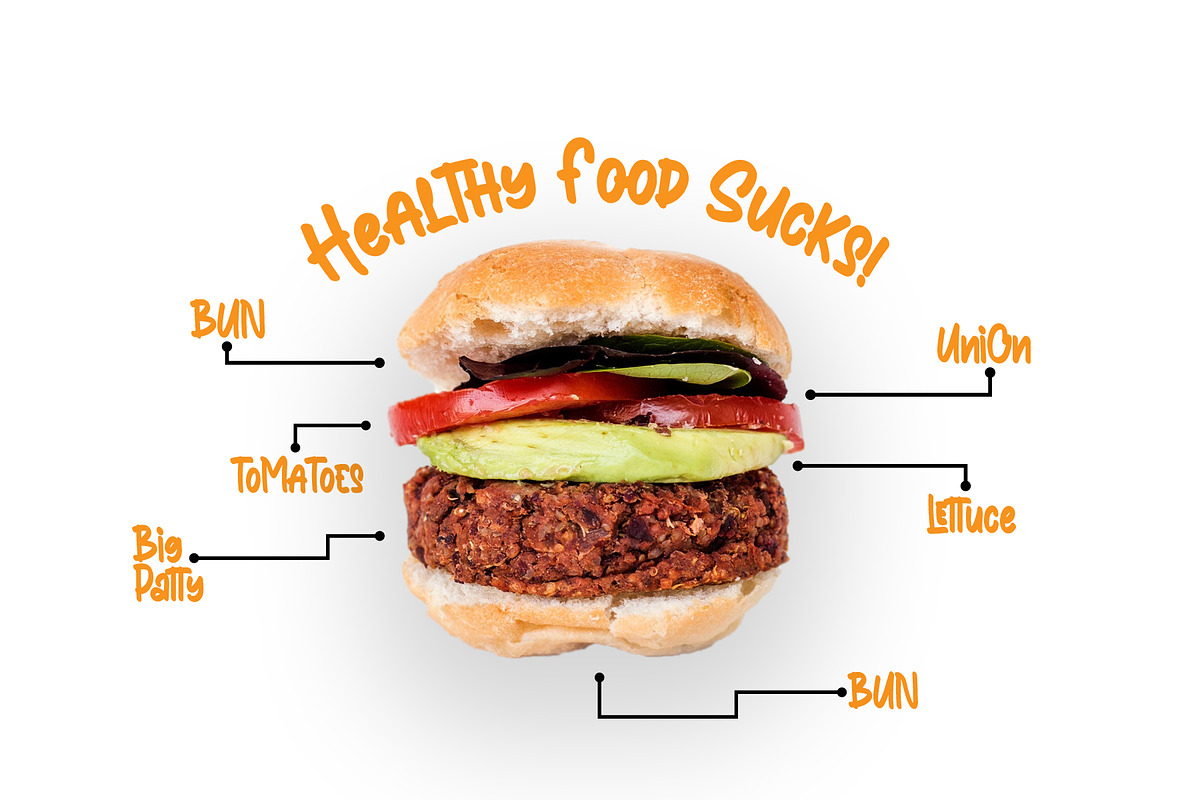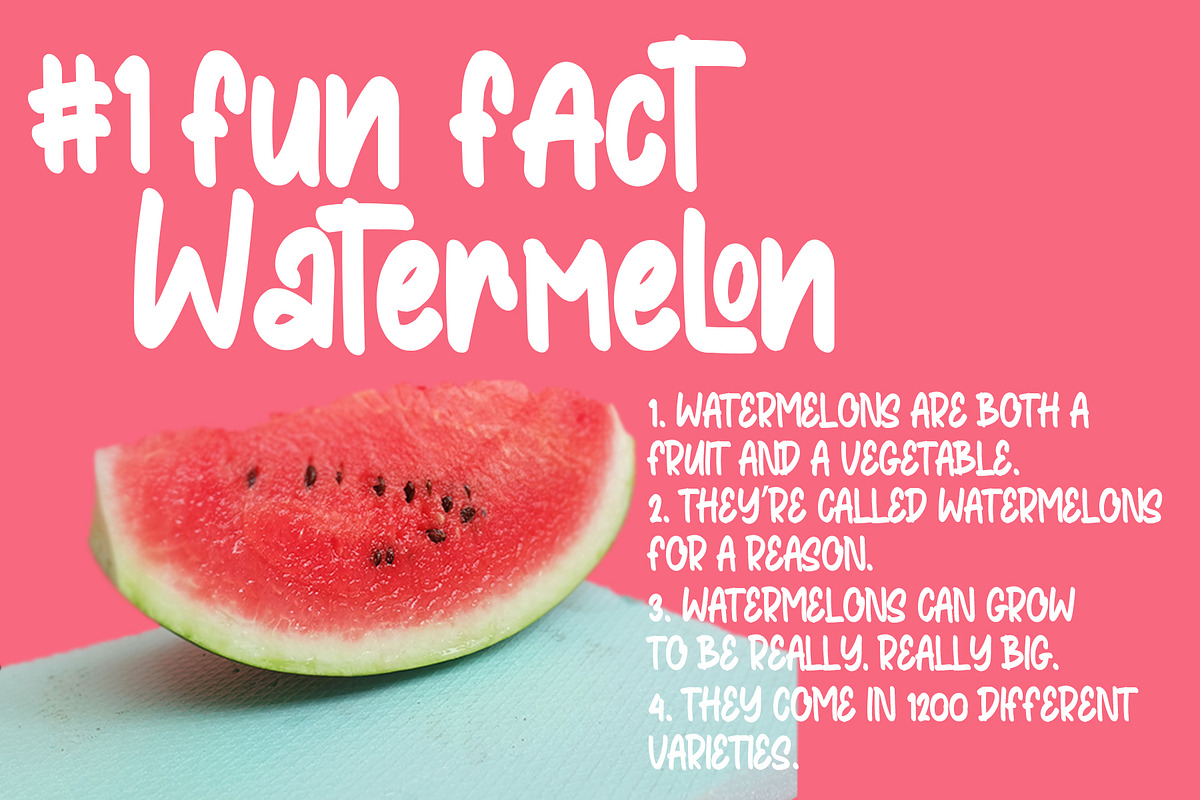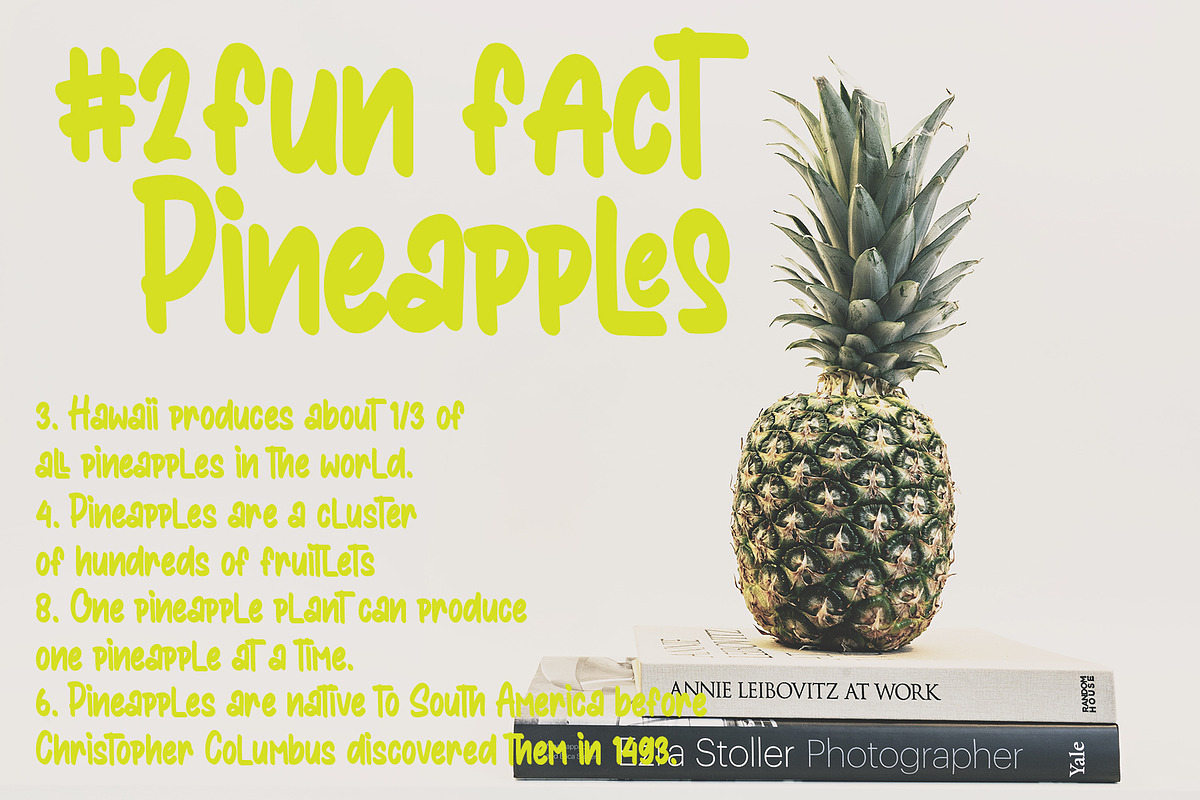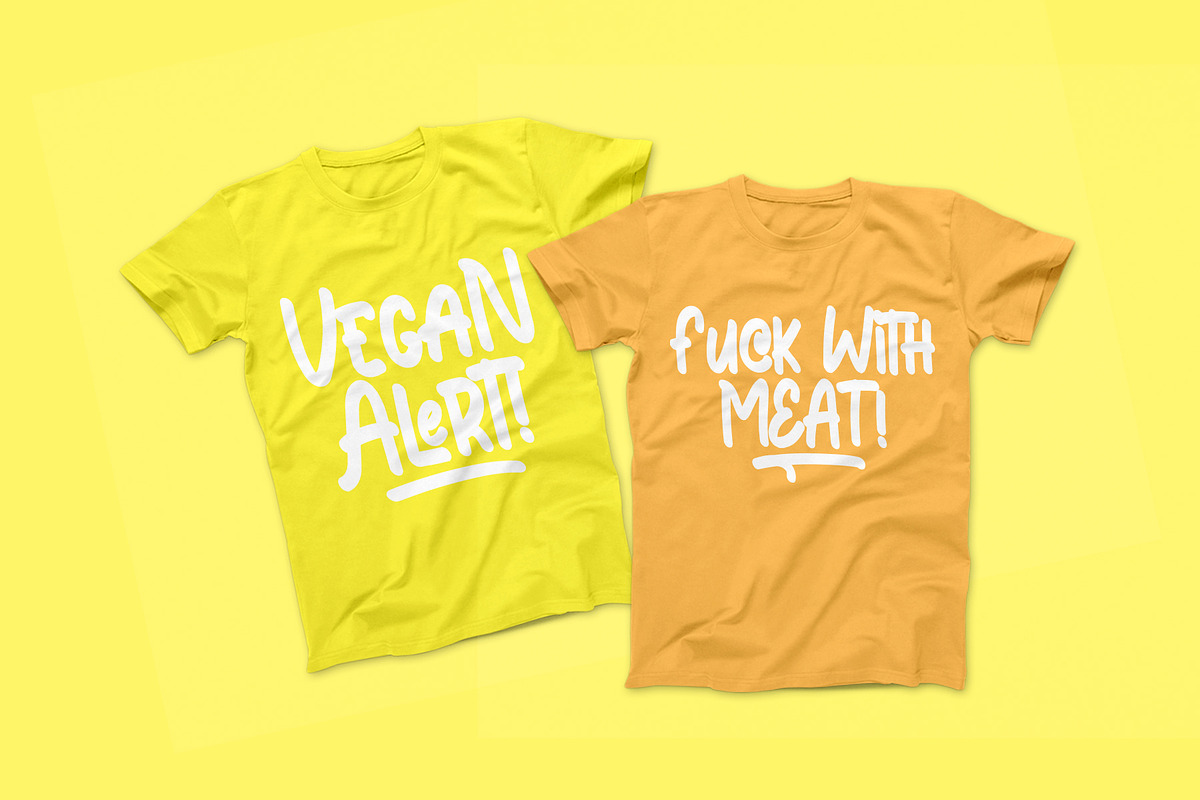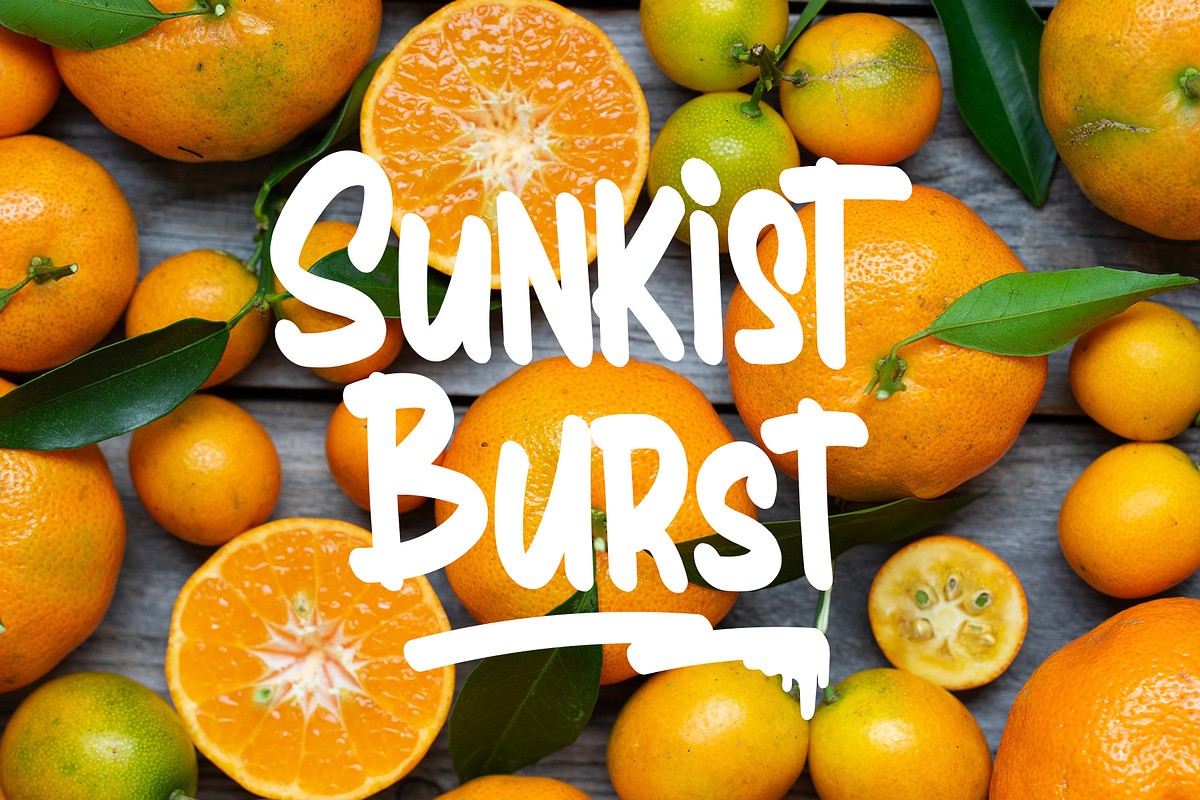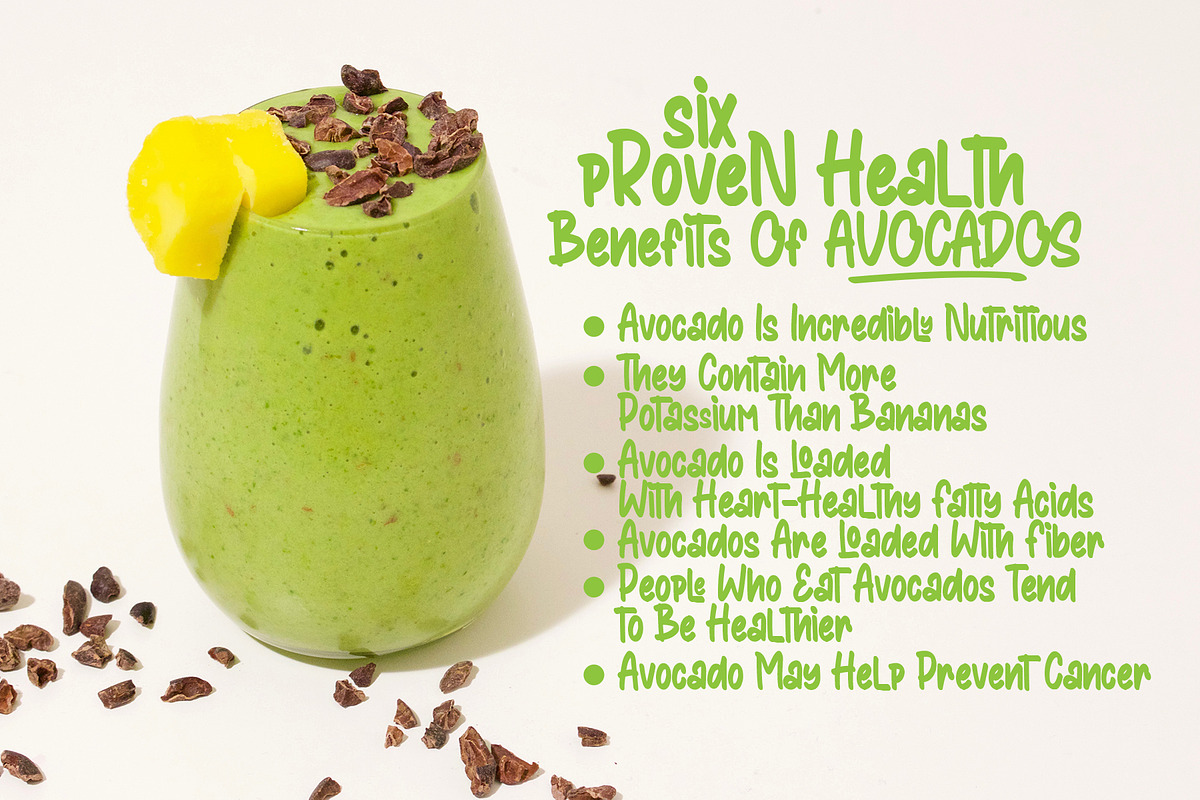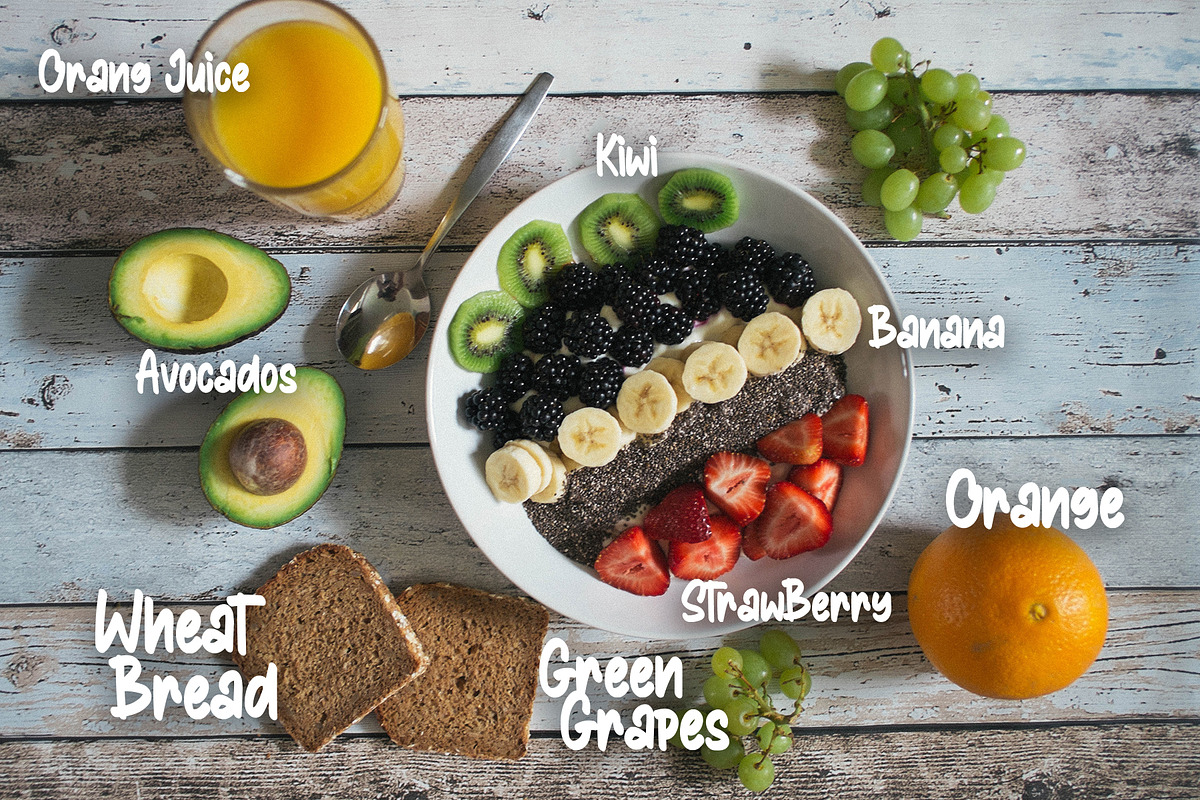
Hannessy Lemonade: Fresh Tasty Fonts
Hannessy Lemonade Uppercase
Hannessy Lemonade Lowercase
Hannessy Lemonade Numerals & Punctuation
Hannessy Lemonade Stylistic Set 1
Hannessy Lemonade Stylistic Set 2
Hannessy Lemonade Standart Ligatures
Why Hannessy Lemonade: Fresh Tasty Fonts is worth a look
Hannessy Lemonade: Fresh Tasty Fonts by Crump Hand fits naturally into Branding, posters, packaging, typography.